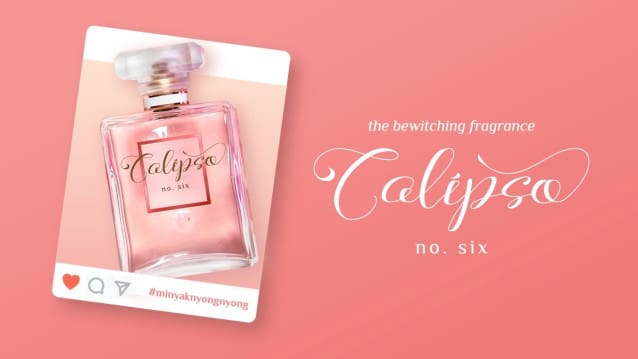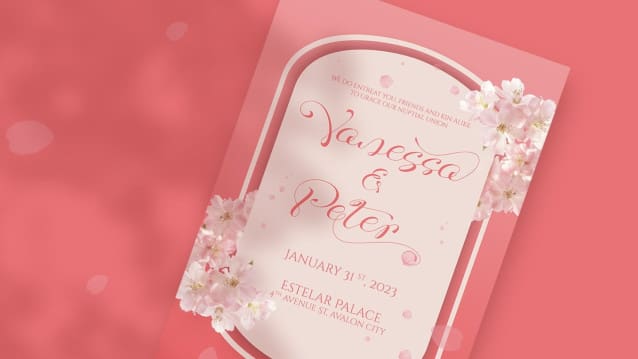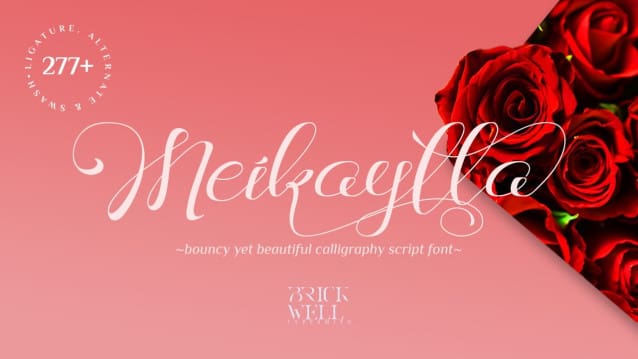
Meikaylla Font
Meikaylla Font, a calligraphy script font that seamlessly merges high-contrast elegance with a bouncy, playful charm. Perfect for invitations, greetings, packaging design, branding, and seasonal themes, Meikaylla adds a touch of sophistication to your designs.
Its timeless appeal ensures lasting impressions, while the font’s versatility makes it user-friendly across various applications.